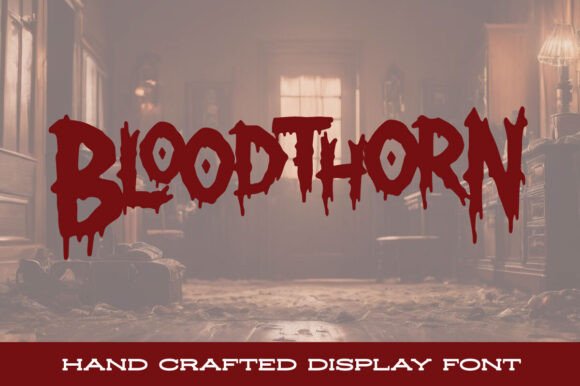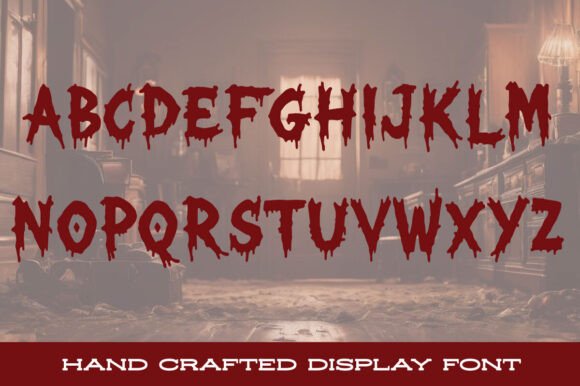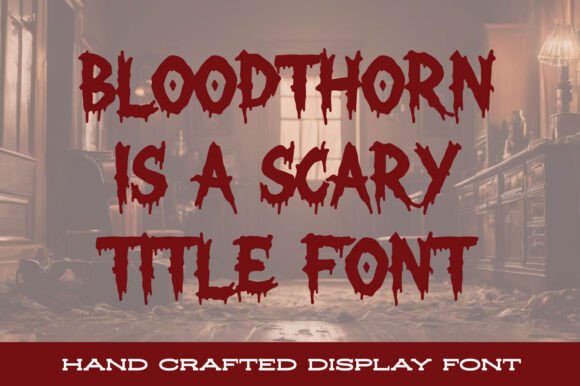
Bloodthorn Font: A Spooky Title Font for Horror Movie Posters
About the Bloodthorn Font
The Bloodthorn Font offers a perfect balance of form and function for your design needs. Bloodthorn is a horror-inspired display font that combines sharp, spiked edges with dripping, oozing details for a menacing, cinematic effect. The characters appear jagged and thorny, as if carved from twisted brambles, while eerie drips extend from the strokes, resembling blood, ichor, or melting wax.
This font is ideal for horror movie posters, Halloween designs, metal band logos, and haunted attraction branding. The rough, aggressive texture gives it an organic, hand-drawn look, evoking vampiric, demonic, and gothic themes. Whether used in all-caps for a brutal impact or in mixed case for a chaotic feel, Bloodthorn delivers a chilling presence.